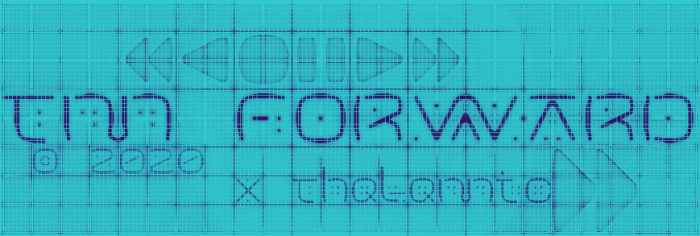
• Quarantine 2020 allowed for this fontstruction to be born as it provided forced free time.
I'm sure it's true for everyone who designs fonts, there were lots of artistic decisions made in the creation process. Some letters went through a lot of iterations to arrive at their current state. Almost the entire uppercase were designed one way, scrapped and then redesigned this way.
The future is screen. Super high-resolution screen. Resolution so high that it is indistinguishible from printed text. 4K screens are available on mobile devices now. The future is resolution independent then.
Great!
wow this is nice
Nice! Looks almost handdrawn.
Beautiful glyphs!
Congratulations! FontStruct Staff have deemed your FontStruction worthy of special mention. “tm Forward” is now a Top Pick.
Not a monospace font. Duospace font.
Duospace. Right. You learn something new everyday. Thanks.
Wow! So schone to me.
The lowercase "A" looks a lot like an alternate uppercase "Q".
Other than that, great font!